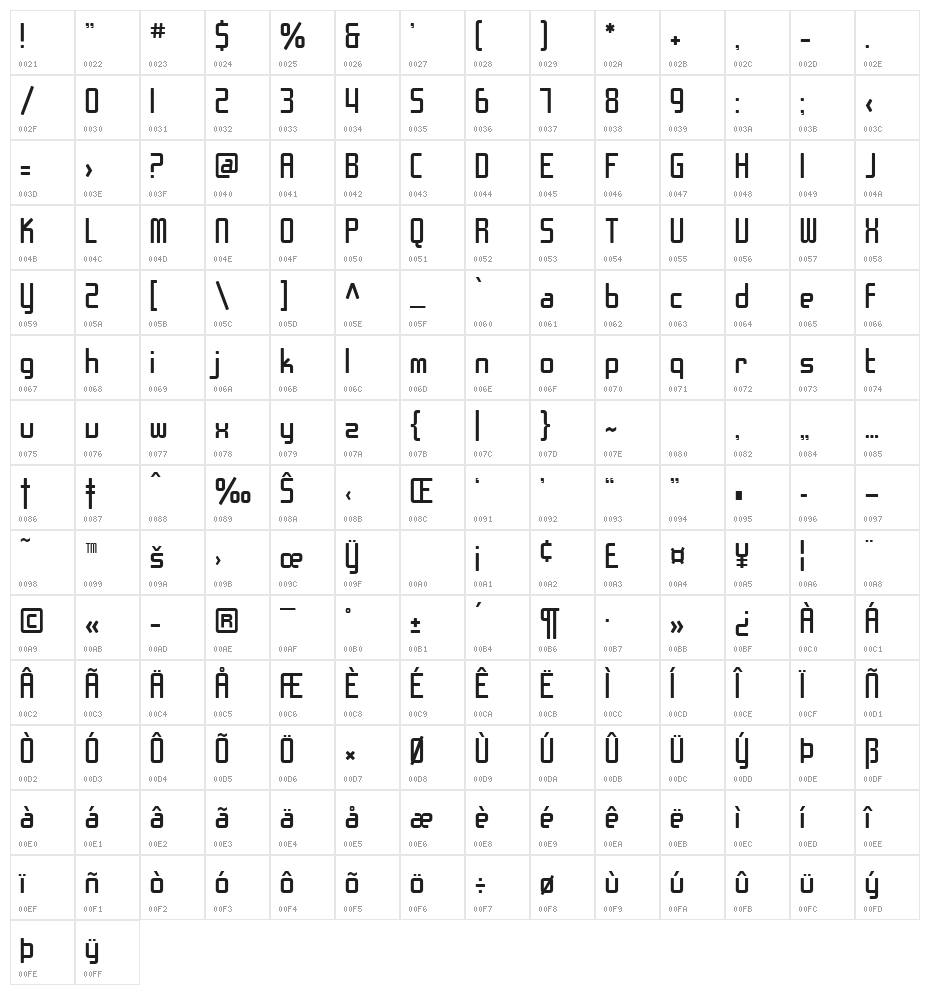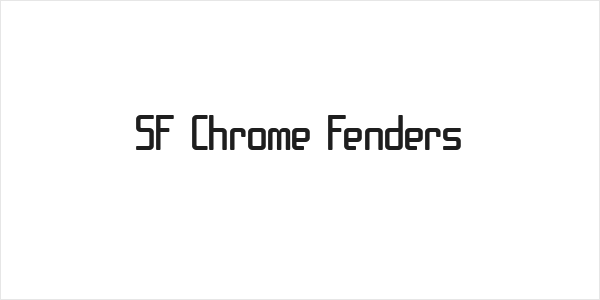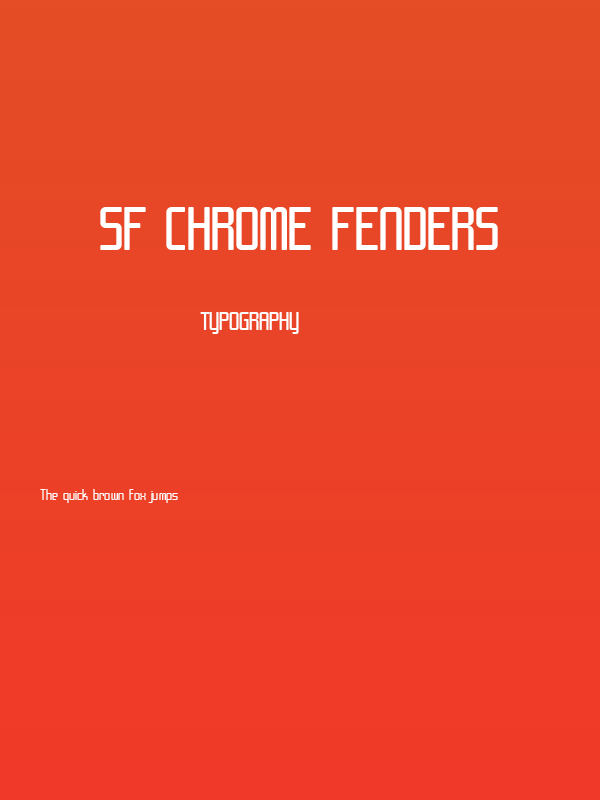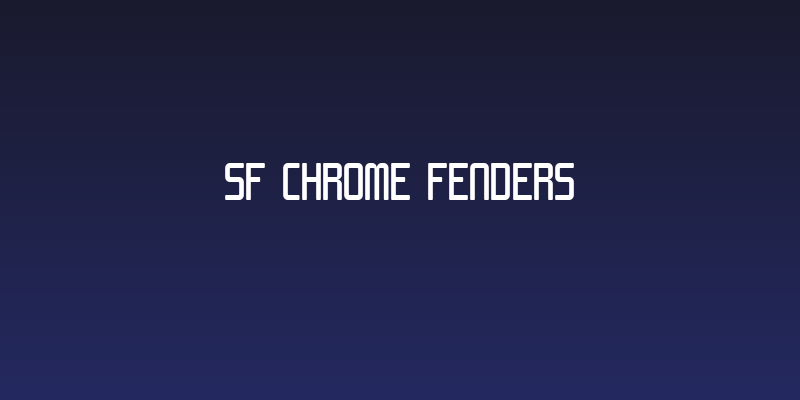
SF Chrome Fenders Font
SF Chrome Fenders Description
This font features a modern, geometric design with rounded edges and a consistent stroke width, giving it a clean and futuristic appearance. The uppercase and lowercase letters maintain a uniform height, contributing to its structured and orderly look. The numerals and special characters are designed to match the overall style, ensuring a cohesive visual experience. The font's simplicity and clarity make it highly legible, suitable for various digital and print applications.
| Use Case | Headlines, Logos, Digital interfaces |
| Proposed Projects | Ideal for tech branding, digital interfaces, signage, and futuristic-themed designs. |